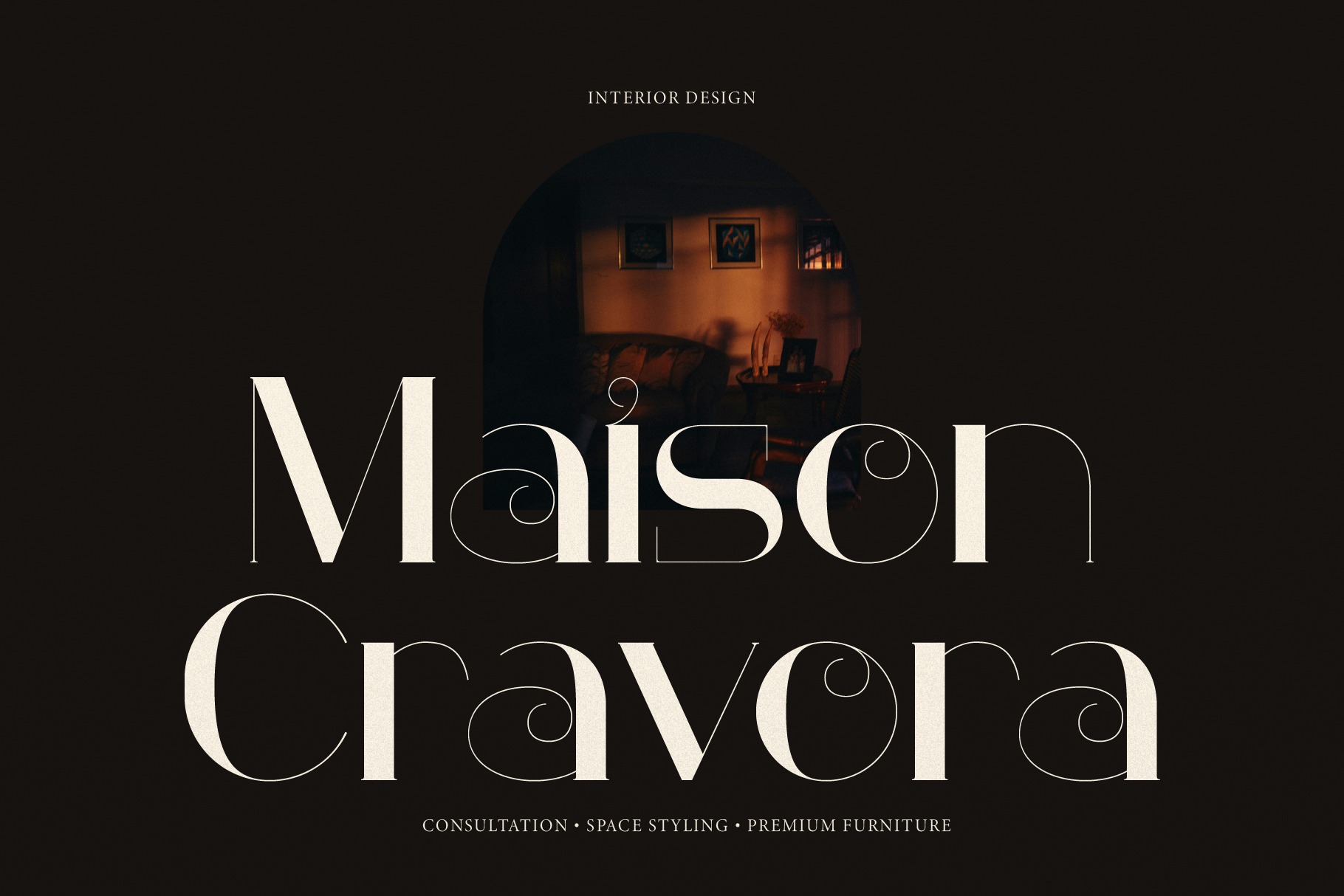
Curlovia – Diplay Elegant Font
Curlovia – Diplay Elegant Font, from Gracetypestudio, suitable for any projects such as: logos, branding projects, homeware designs, product packaging, mugs, quotes, posters, shopping bags, t-shirts, book covers, name card, invitation cards, greeting cards, label, photography, watermark, special events, and all your other lovely projects that need a Elegant taste.